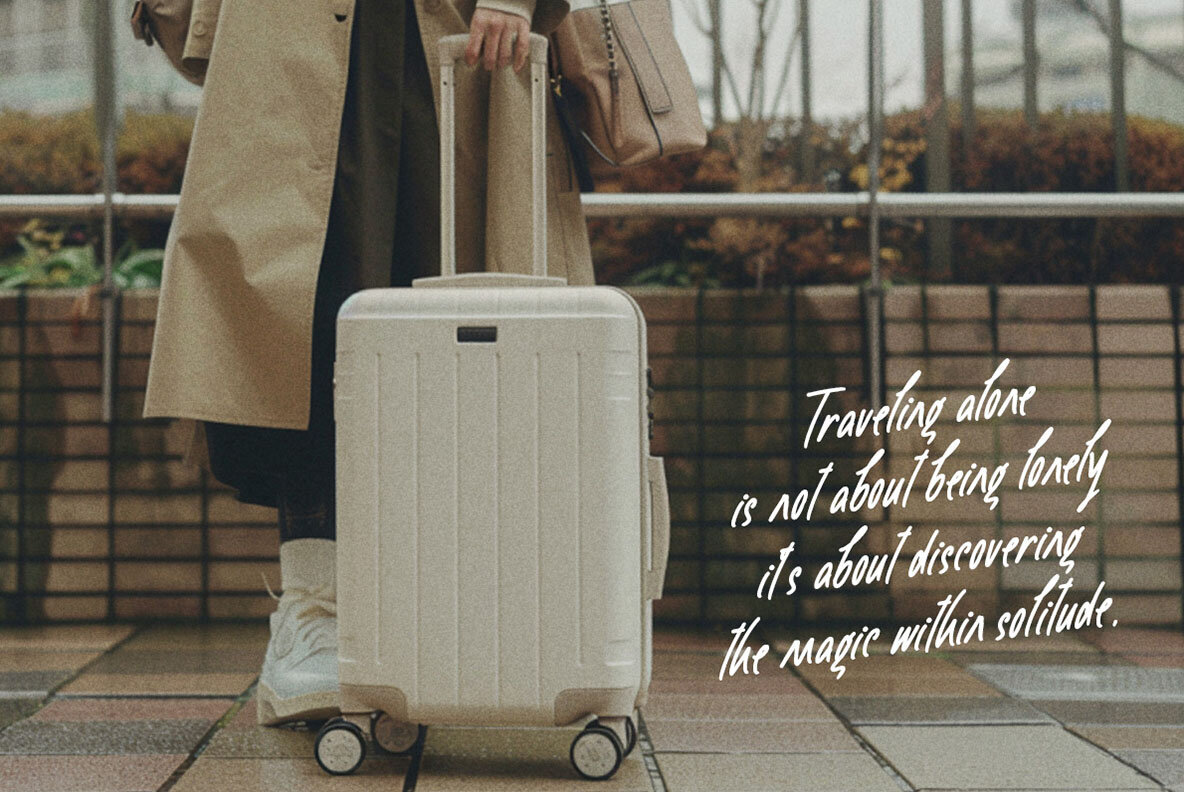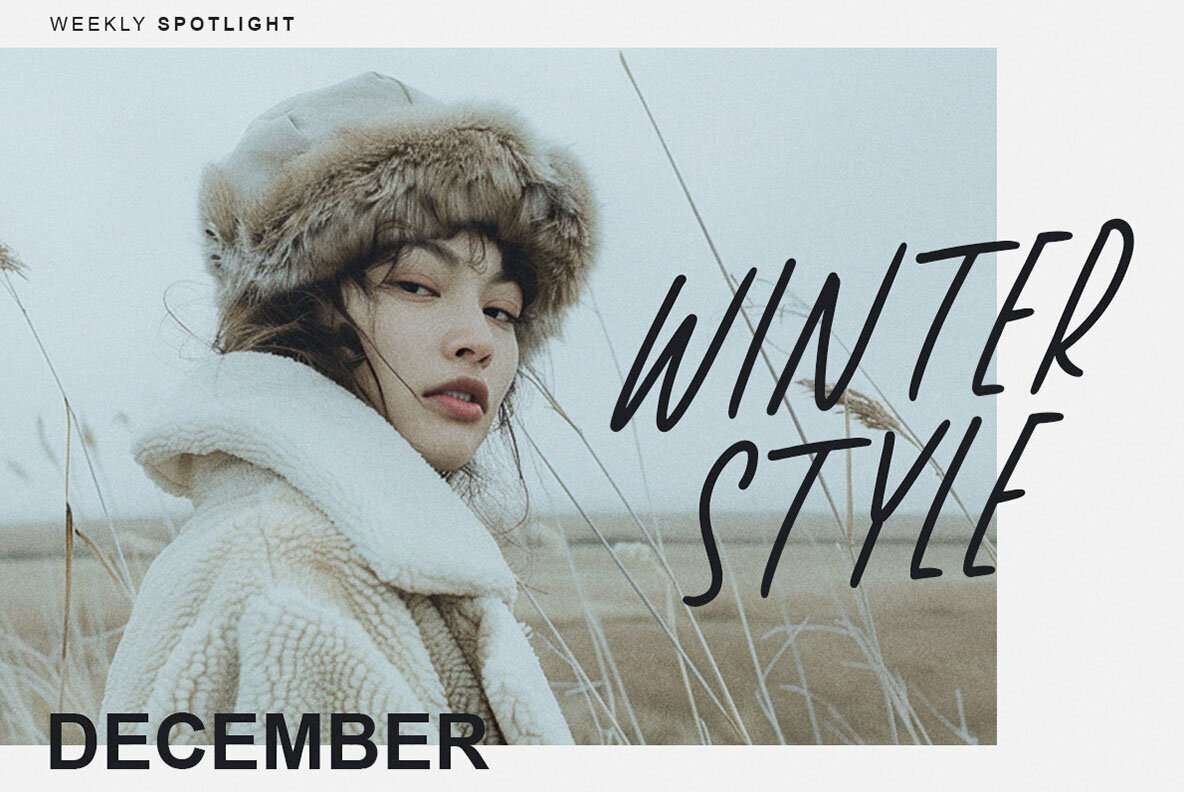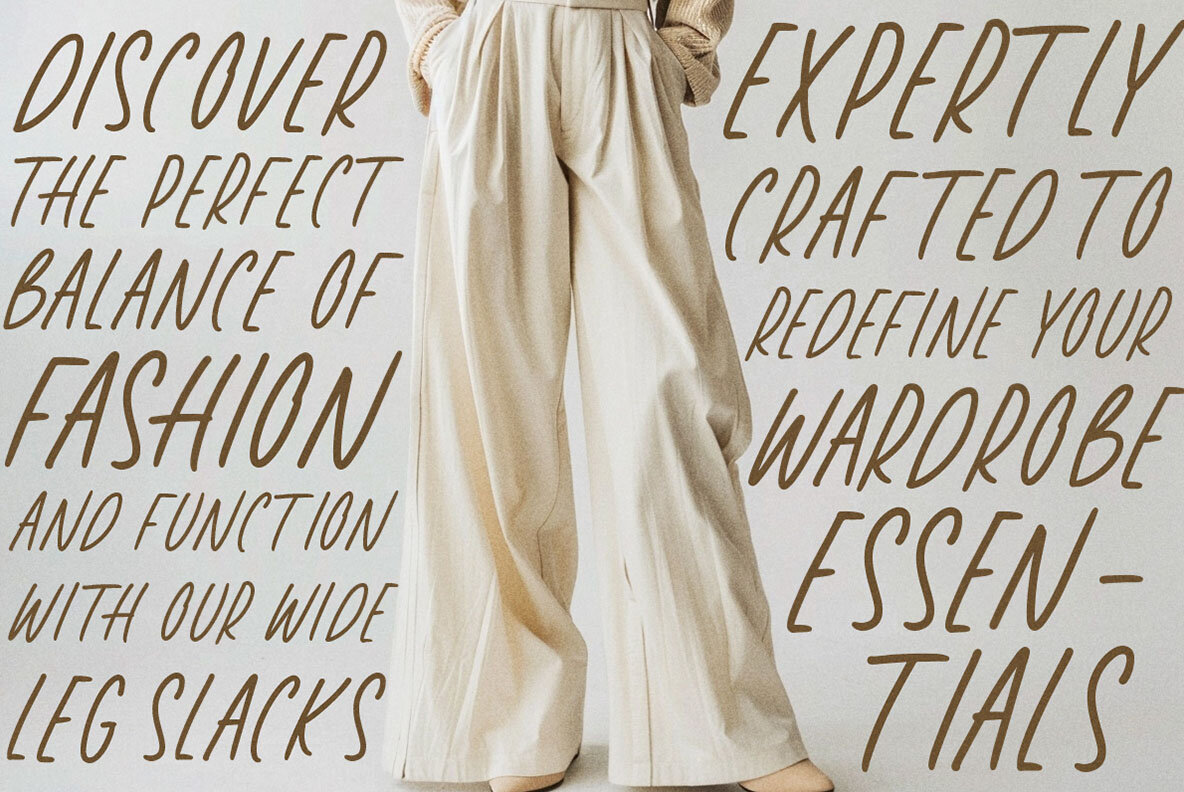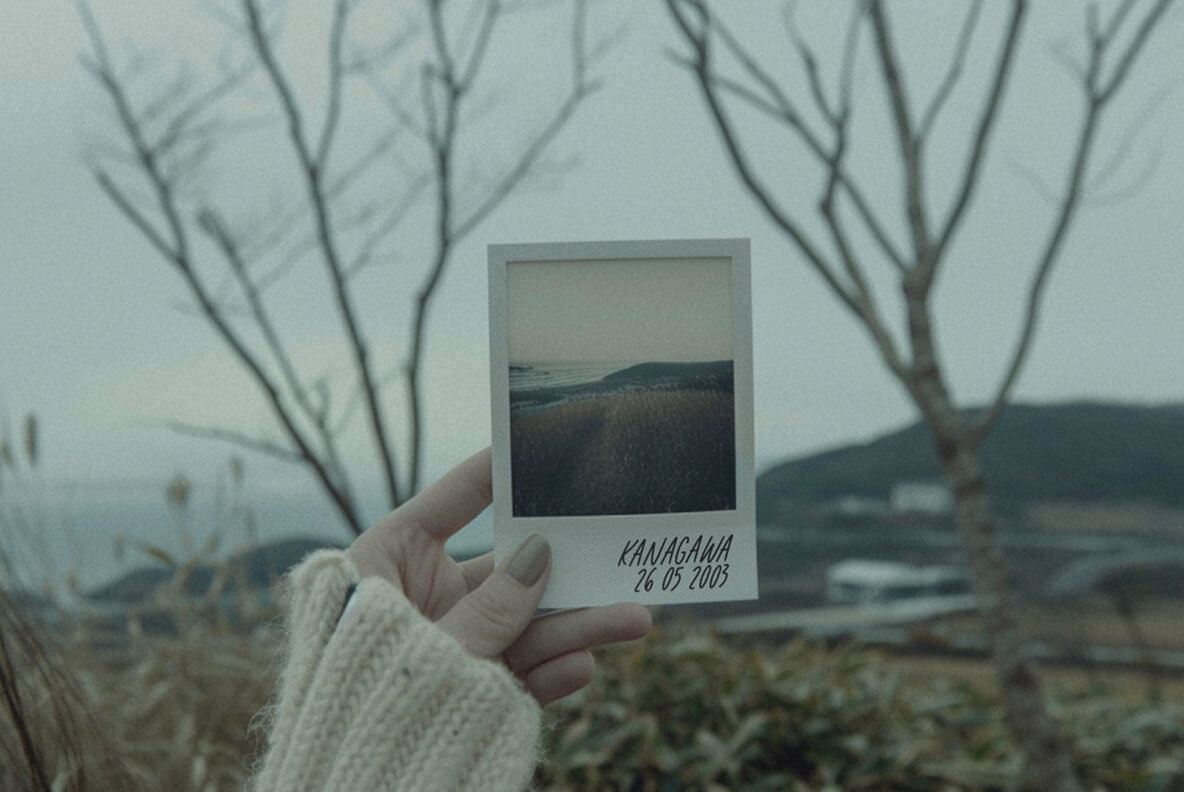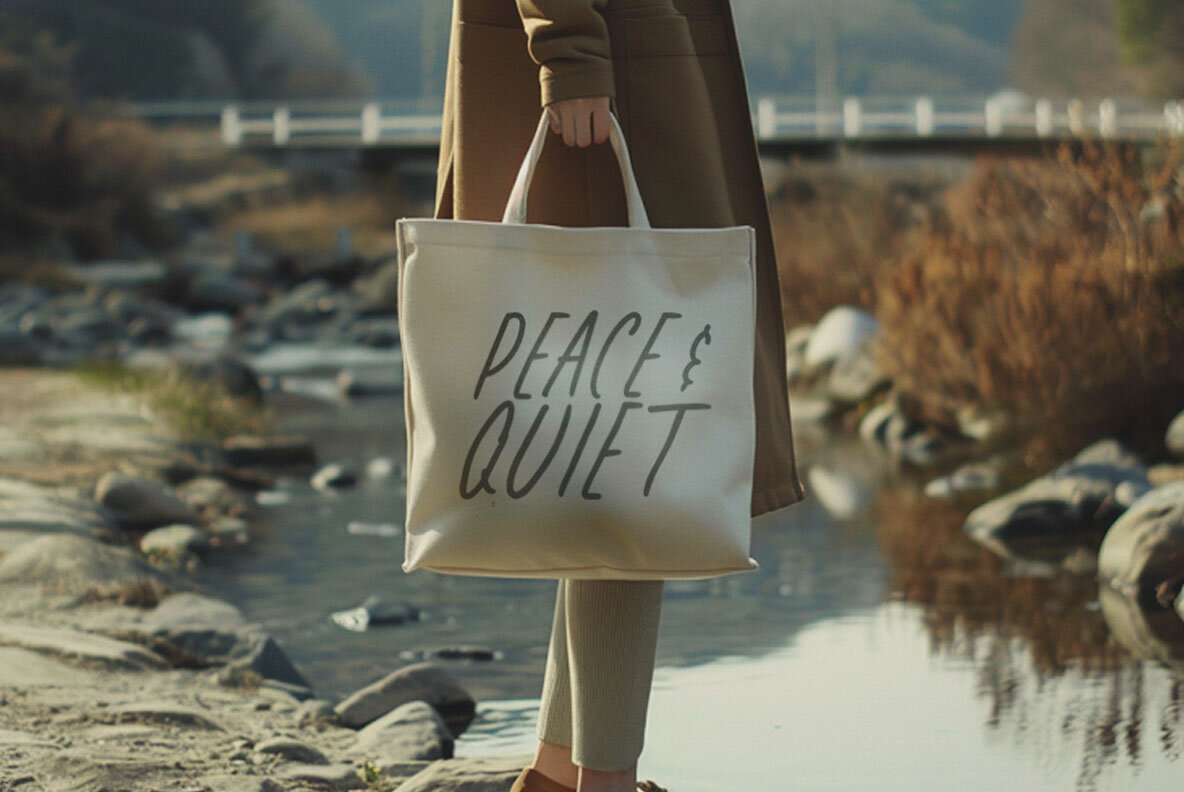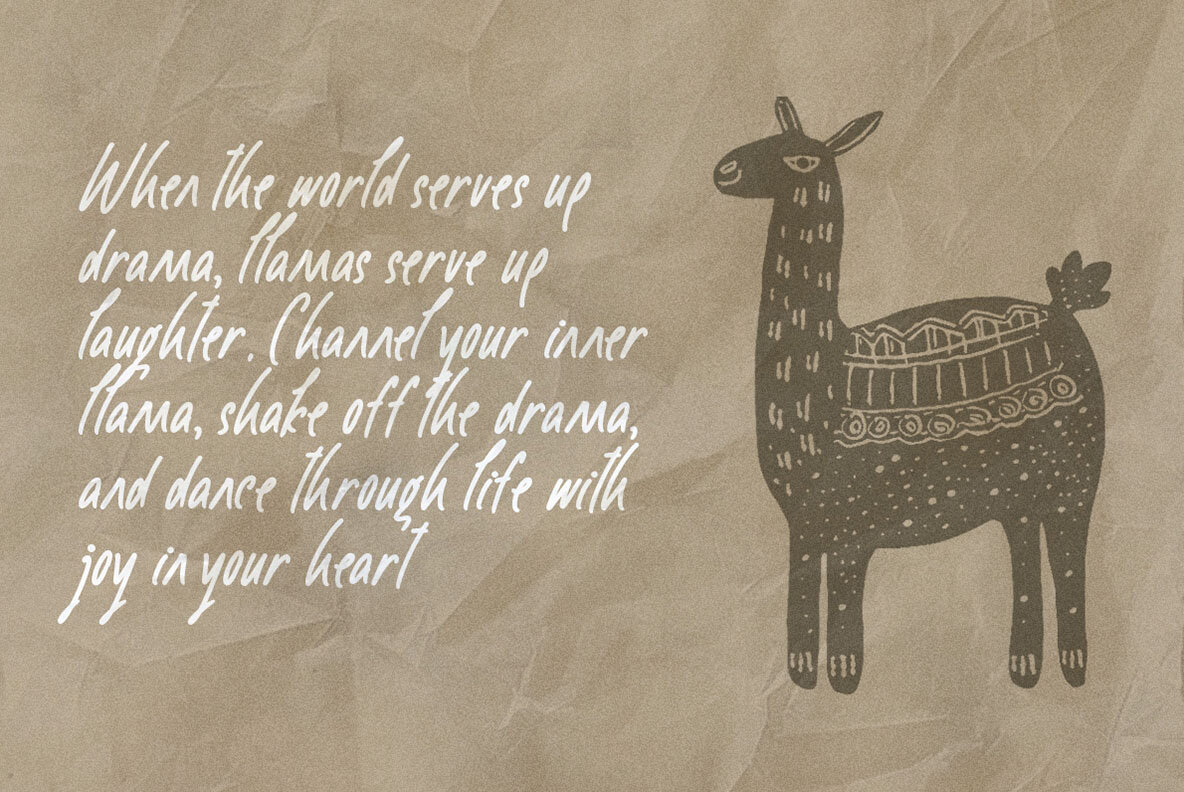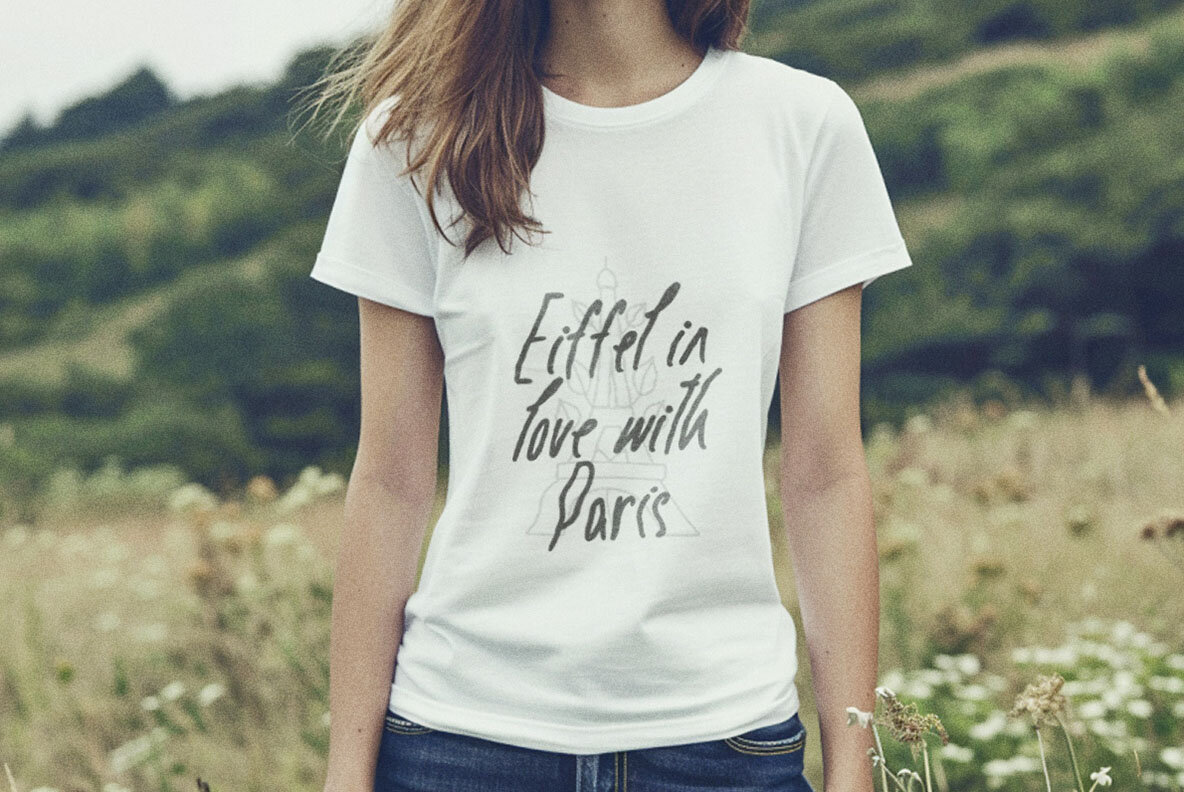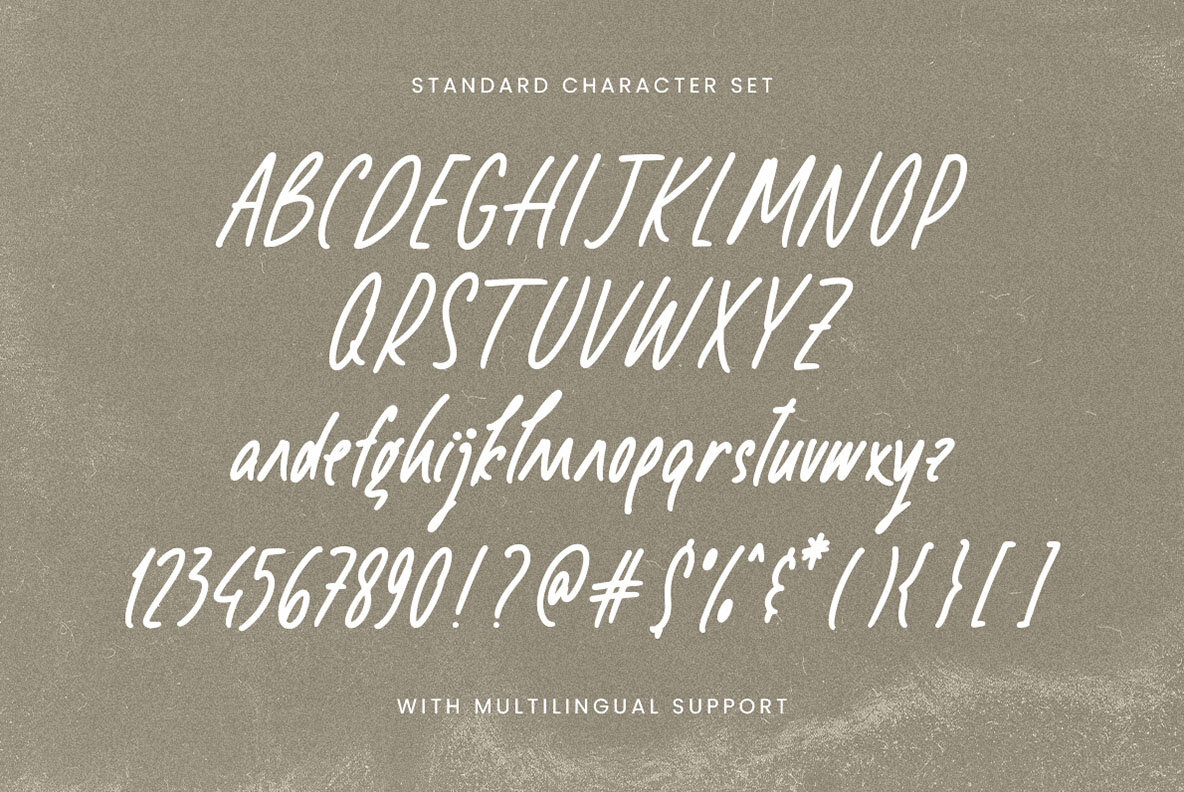
Smile Brightly Font
Smile Brightly Regular
This font features a script, handwritten style with the dynamic nature of brush strokes, creating an impression of spontaneous and fluid handwriting. It is ideal for designs seeking an organic, personal touch with a sense of energy and artistic flair. The font's gestural quality and uneven weight distribution suggest a casual and contemporary approach, perfect for attention-grabbing headlines and creative branding.